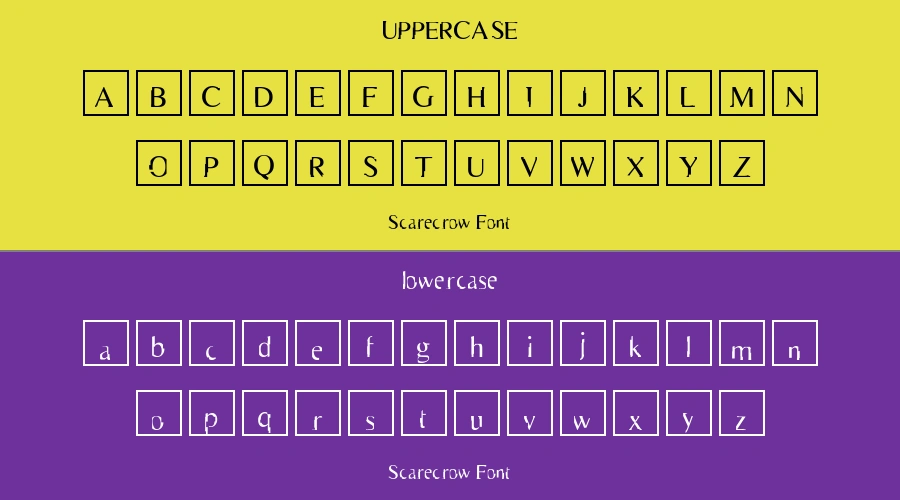
About Scarecrow Font
Designed with precision, Scarecrow Font merges strong contrast with authenticity in every character. This versatility makes it particularly effective for technical manuals, where flexibility and technical mastery directly impact communication quality. Each letterform demonstrates meticulous craftsmanship.
Technical excellence shines through elements like tapered strokes and arrow sets, enhancing typographic versatility. In headlines settings, Scarecrow Font proves its worth through superior detail retention. The thoughtful execution of corner treatment and modern touches ensures professional results.